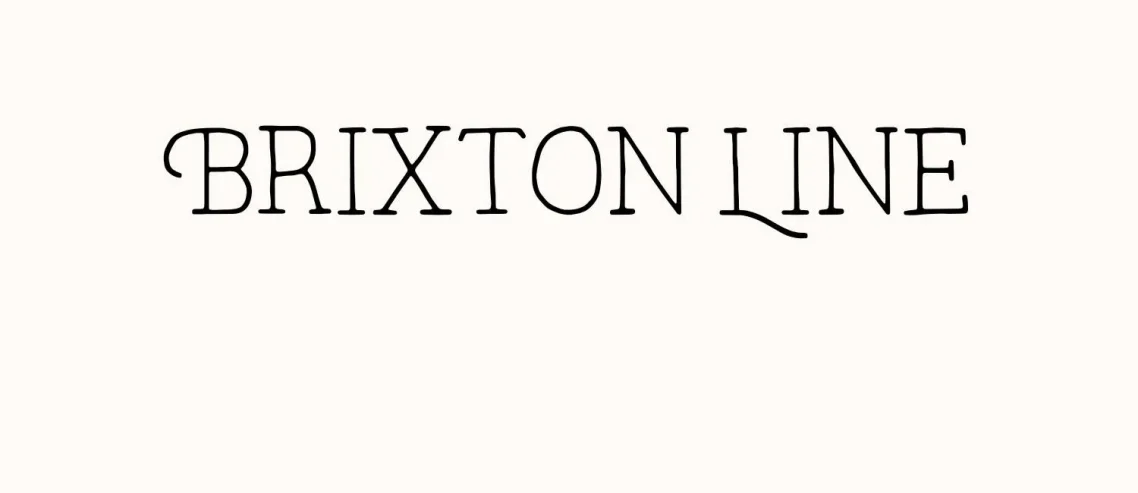
Brixton Line Font Free Download
The Brixton Line font is like writing with clean and simple lines. Its letters are straightforward and easy to read, making it a versatile choice for various design purposes. When people use the Brixton Line font, it gives their words a modern and minimalist look. This font is often selected when a sleek and contemporary …